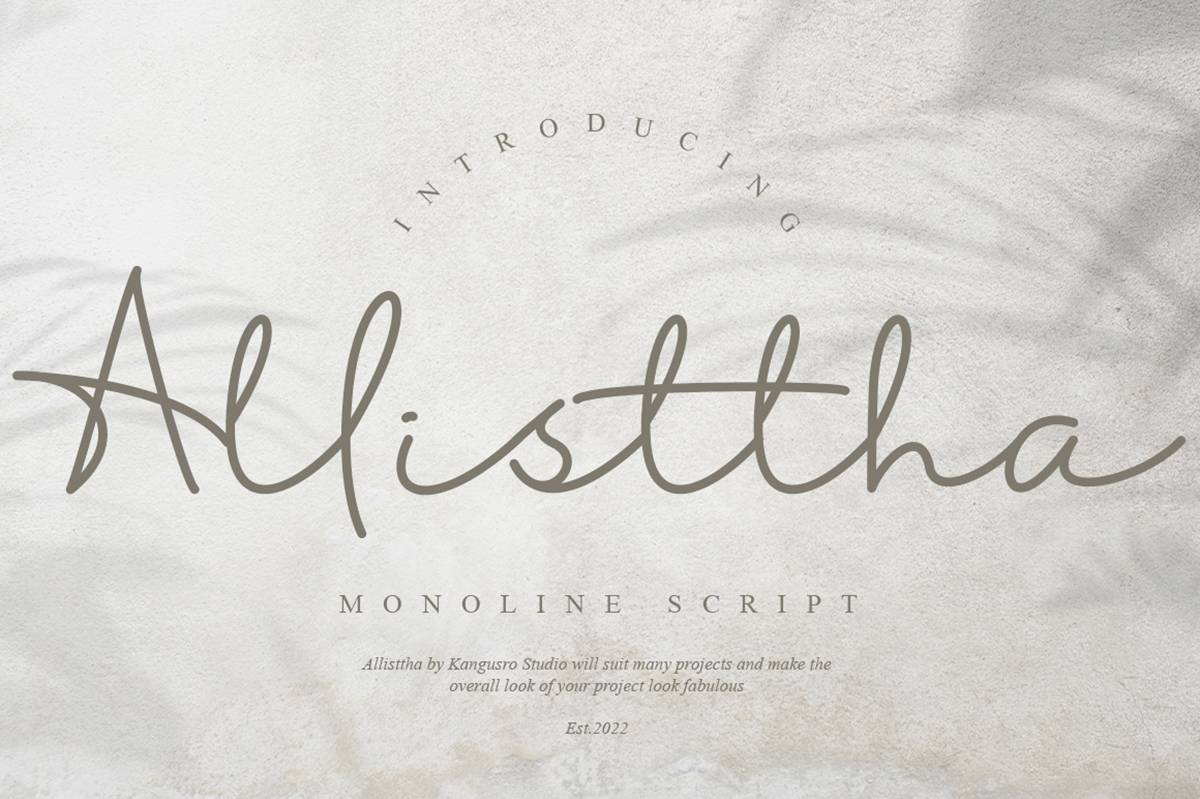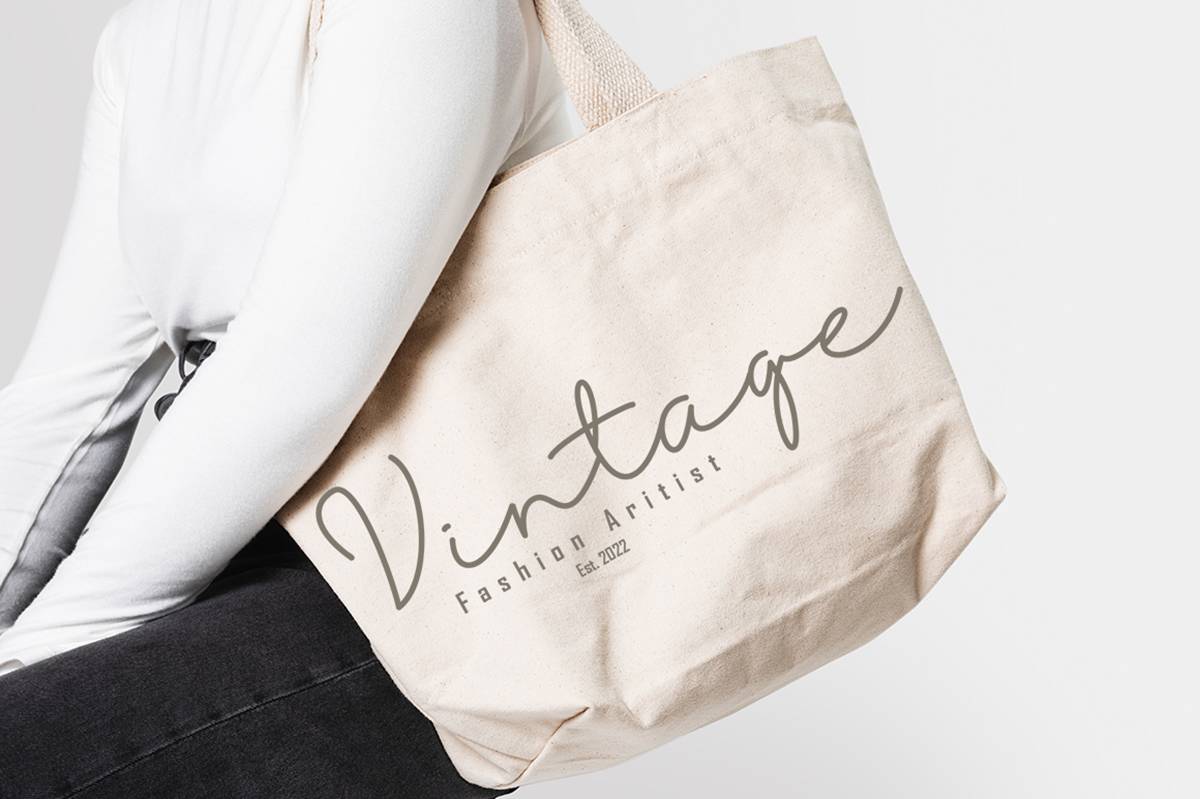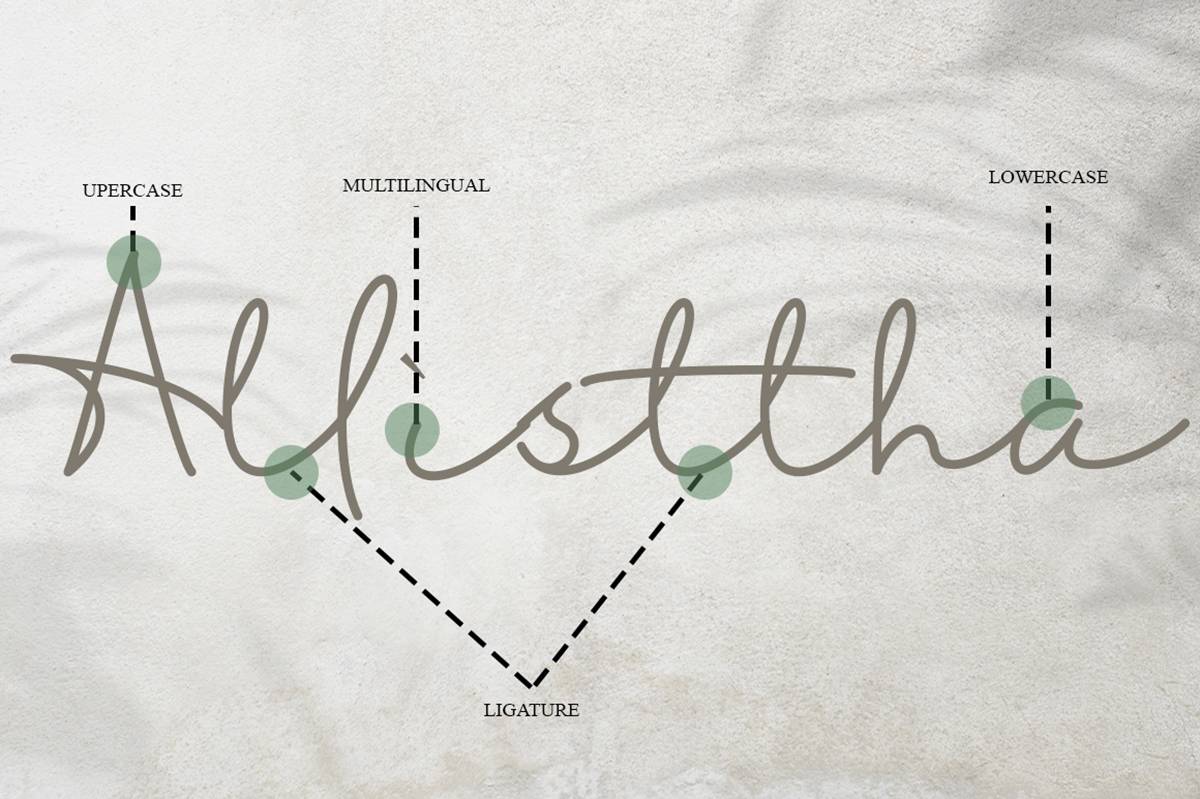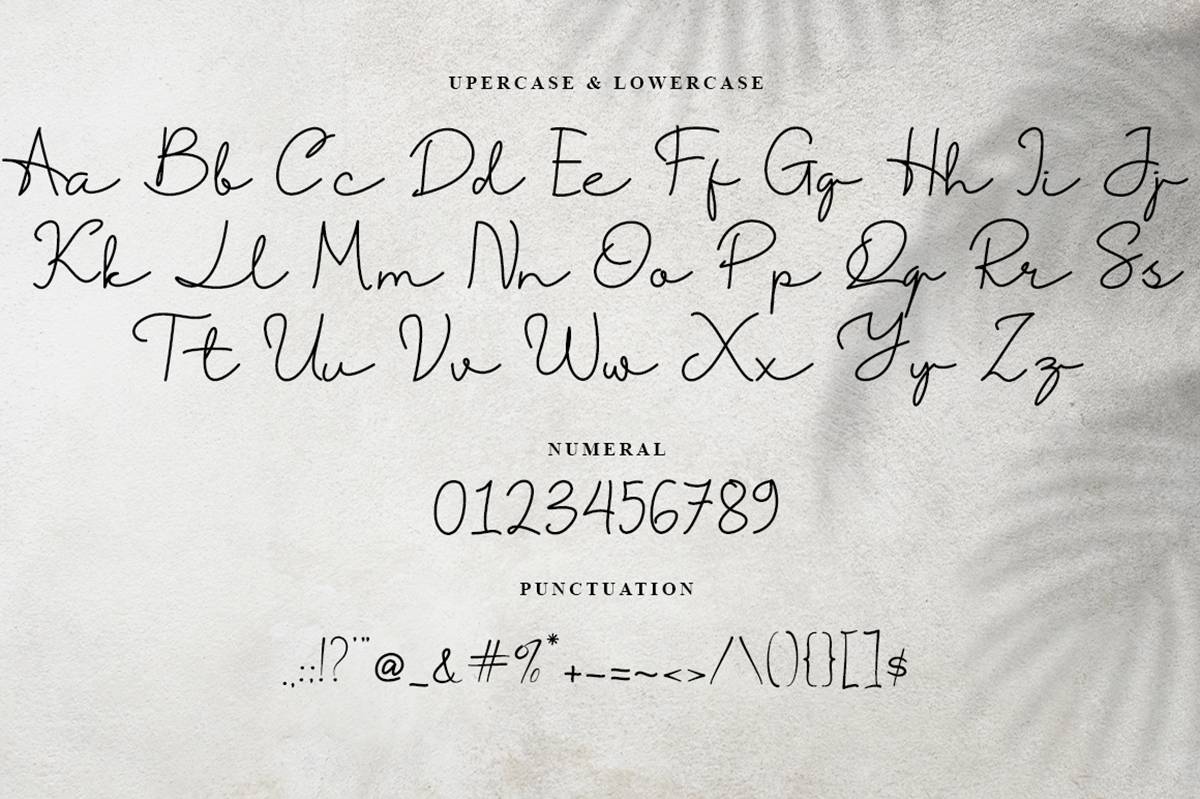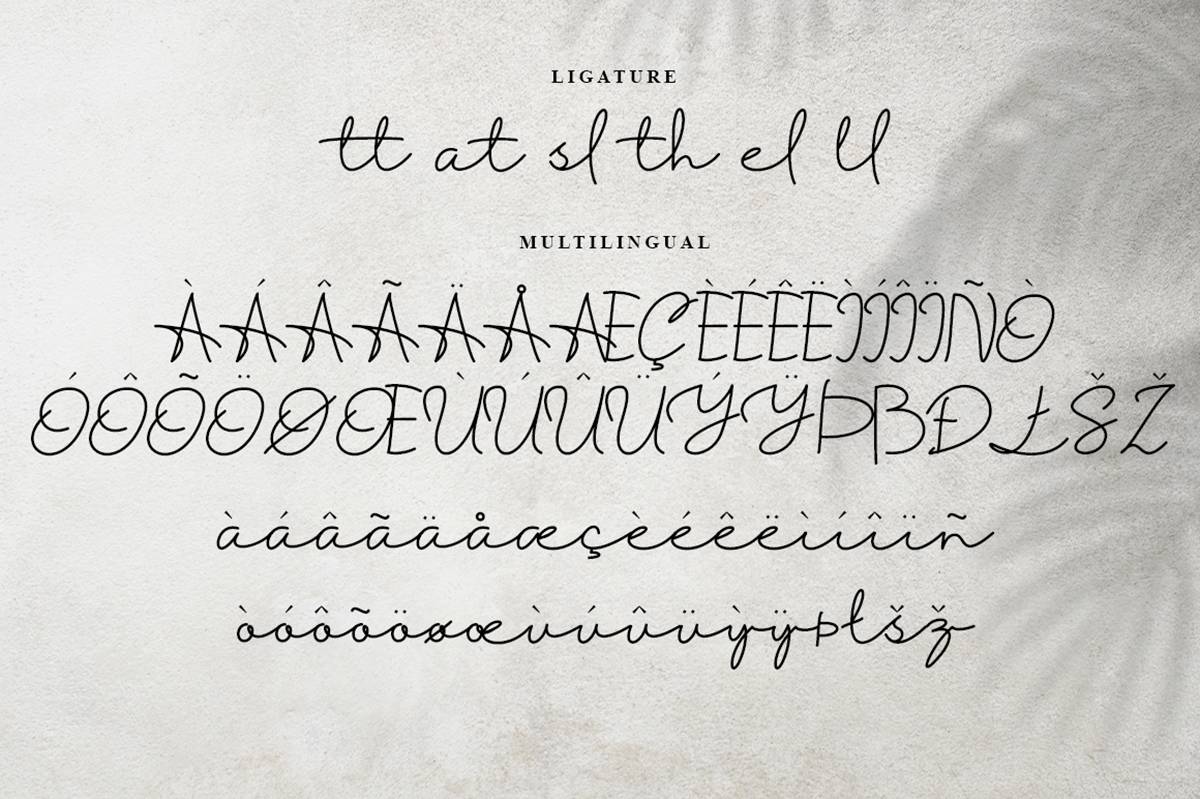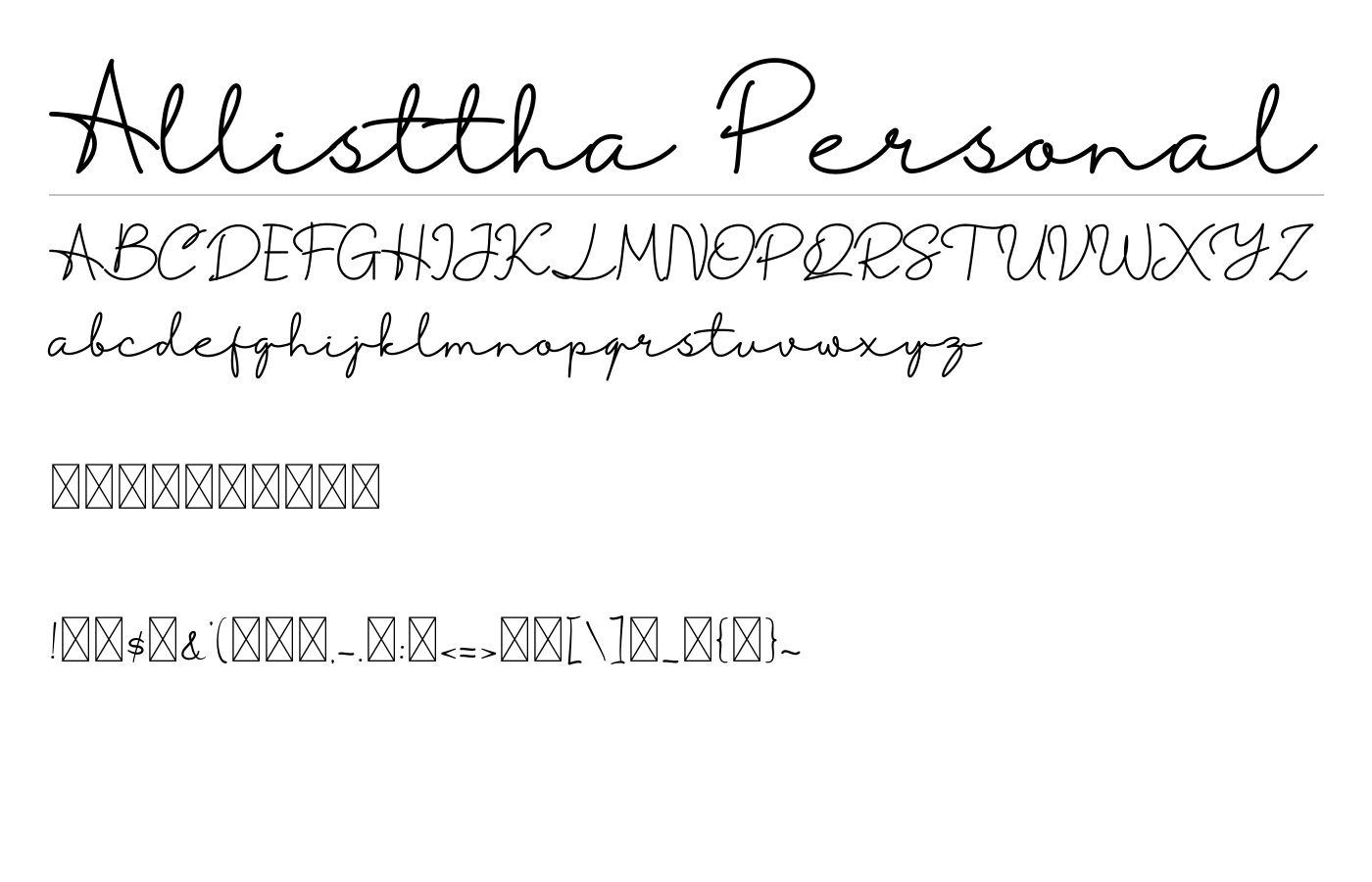
Allisttha is a delicate, handwritten script font characterized by its thin, flowing strokes and elegant, airy letterforms. It conveys a personal and casual feel, making it ideal for invitations, greeting cards, and branding that seeks a friendly, approachable touch. Its light weight and smooth curves provide a graceful, modern aesthetic that works well in creative and lifestyle contexts.
Allisttha Font
About Allisttha Font